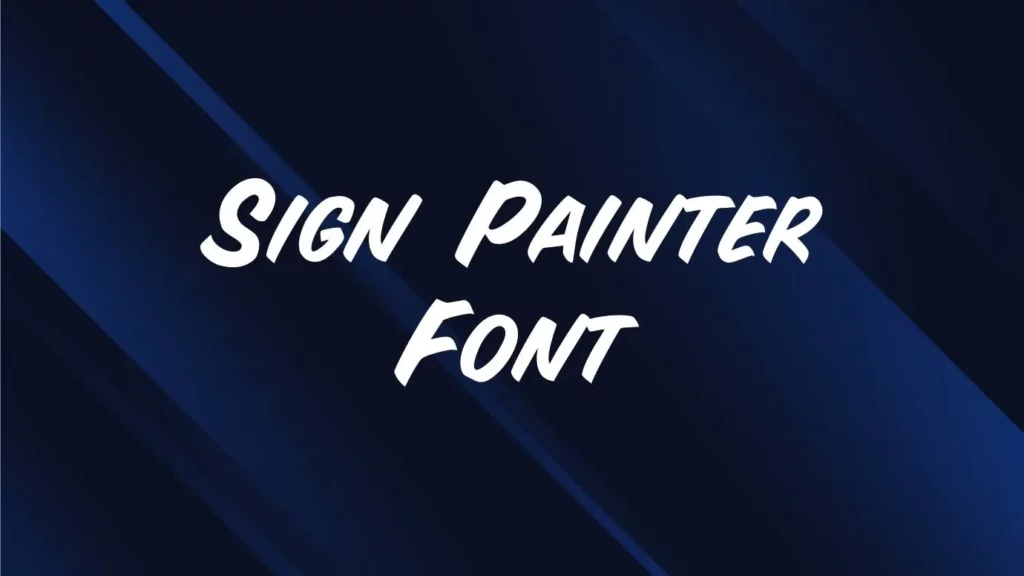
Sign Painter typeface is perfect for any type of signage, whether it be for business or personal use. If you're looking for a versatile, professional-looking,
Sign Painter Font is a popular typeface that has been used for years by sign painters. The font is characterized by its sharp, clean lines and its simple, yet stylish design.
Sign Painter typeface is perfect for any type of signage, whether it be for business or personal use. If you're looking for a versatile, professional-looking, then Sign Painter texture is a perfect choice.
It is a script font that is based on the lettering of real sign painters. Sign Painter texture was created by House Industries. Each style contains 697 characters and supports over 200 languages. Sign Painter typeface is a great choice for any project that requires a stylish, yet simple font.
Yolanda script font is a typeface that looks quite similar to this typeface.
This typeface falls under the category of the script typeface.